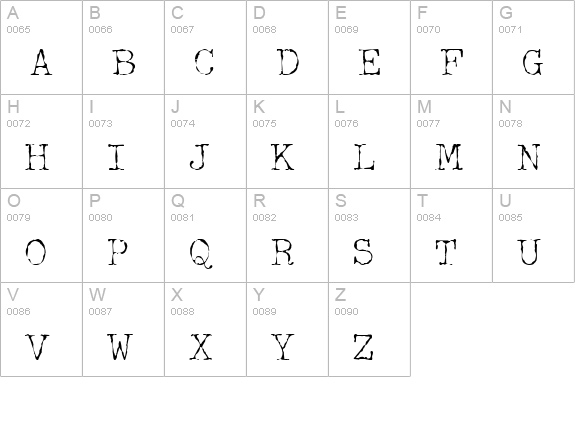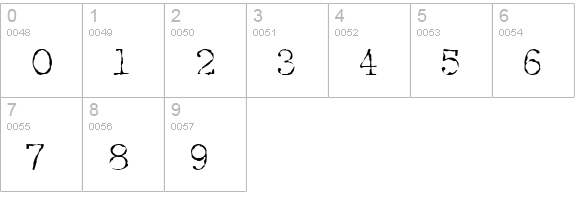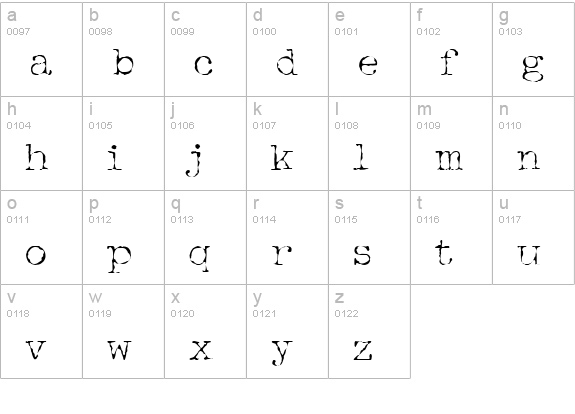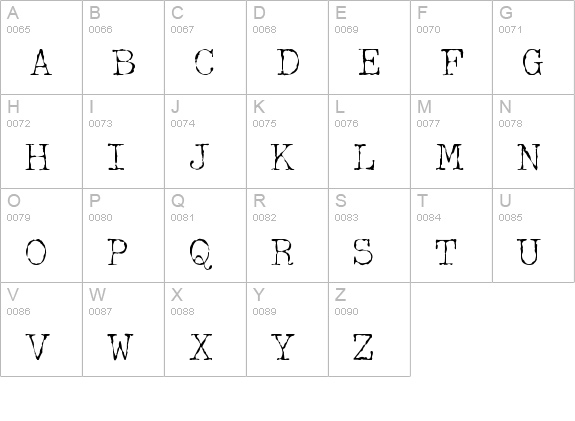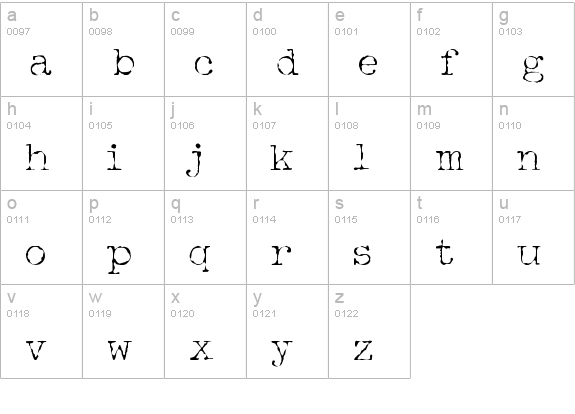
McGarey Font Details
McGarey font is a beautifully crafted typeface that combines elegance with a touch of modernity. Its sleek lines and balanced proportions make it suitable for a wide range of design projects, from branding to editorial layouts. The versatility of McGarey font allows it to effortlessly adapt to various design styles, adding a sophisticated flair to any project. The best part about McGarey font is that it is available for free download at FontsMarket.com. This means that you can easily access this stunning typeface without any cost, making it a valuable addition to your font library. With its timeless appeal and exceptional quality, McGarey font is sure to elevate your designs and leave a lasting impression on your audience. Download it today and unlock the endless possibilities that this font has to offer.